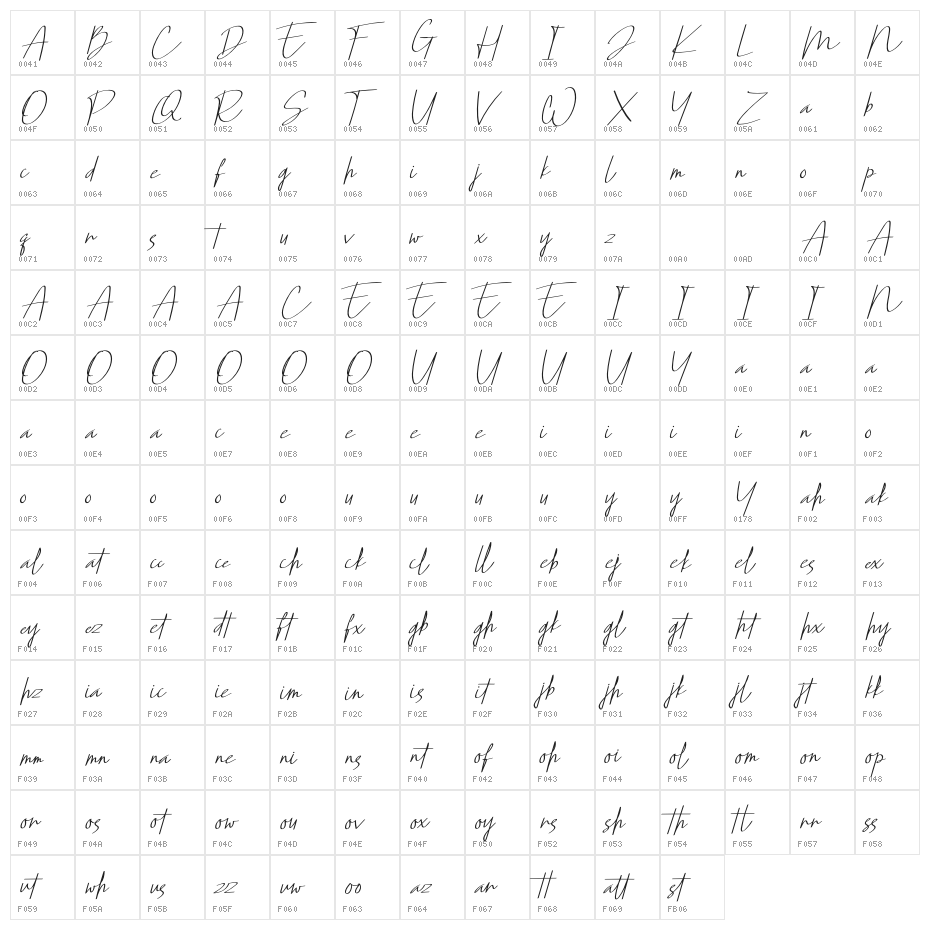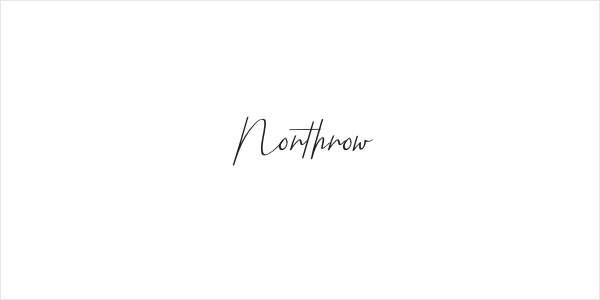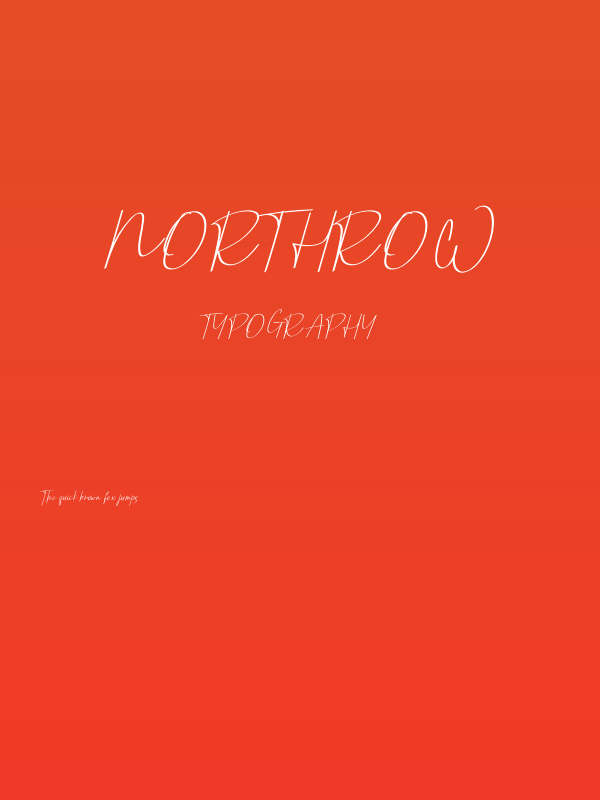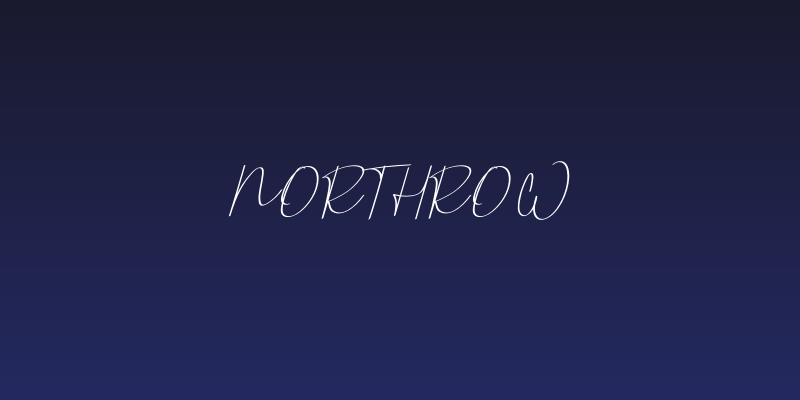
Northrow Font
Northrow Description
This font features a dynamic and fluid handwritten style, characterized by its elegant and flowing strokes. The uppercase letters exhibit a sense of movement and spontaneity, with varying stroke widths that add to its lively appearance. The lowercase letters maintain this fluidity, offering a cohesive and harmonious look. The numbers and special characters are designed to complement the overall aesthetic, ensuring consistency across all elements. This font's unique style makes it suitable for creative and expressive projects, where a personal touch is desired.
| Proposed Projects | Ideal for wedding invitations, personal branding, greeting cards, and artistic projects. |